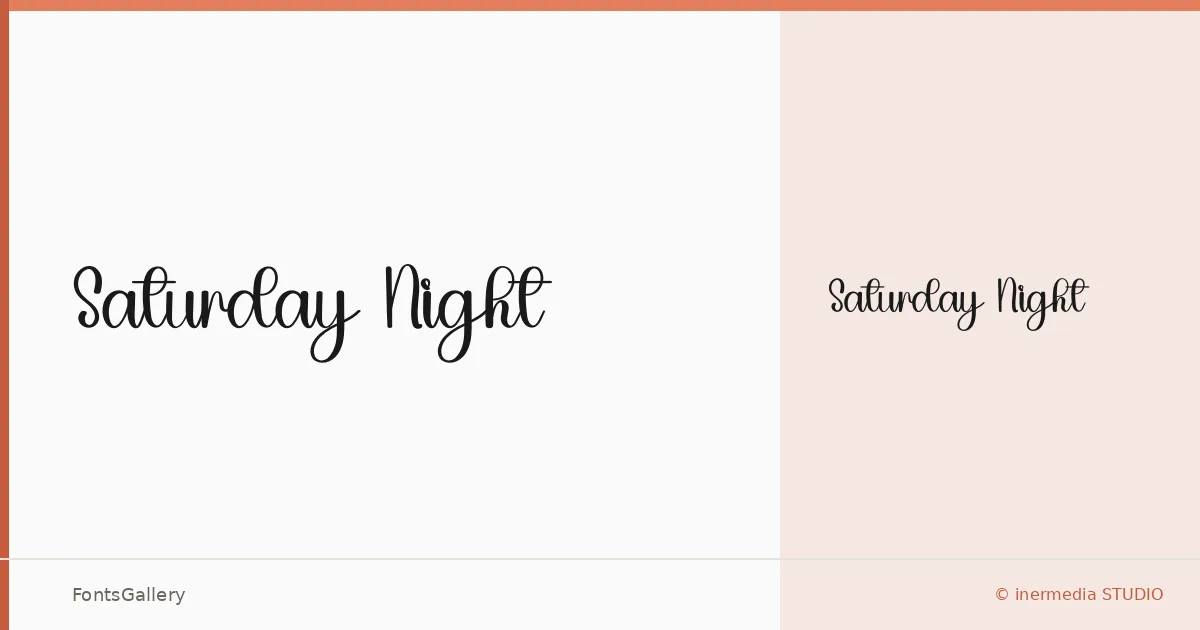
About Saturday Night Font
There is a looseness to this script that feels genuinely hand-drawn — the kind of lettering you'd find on a beautifully addressed envelope rather than something assembled from modular parts. Designed by inermedia STUDIO, Saturday Night arrives as a single Regular weight in OTF format, which focuses the design's energy entirely on getting one thing right.
The script sits at an interesting intersection of elegant and playful: the strokes carry a romantic softness while the overall rhythm stays modern enough to avoid feeling ornate for its own sake. Because it covers Latin (partial), the coverage is suited to English and many Western European languages but should be checked against your specific character needs before committing to a project. As a single-cut family, all the expressive weight lives in the letterforms themselves — in the way the curves breathe and the connections between letters flow.
The design is at its best in work that asks for warmth and personality: wedding stationery, invitation cards, greeting cards, and branding marks where a handcrafted touch earns its keep. It also scales well to social media graphics where a single headline word carries the composition. For body text or supporting typography, it pairs naturally with Canela, Helvetica, ABC Arizona, Etna, or Adobe Caslon Pro — each offering a different tonal counterpoint, from cool editorial to classical serif.